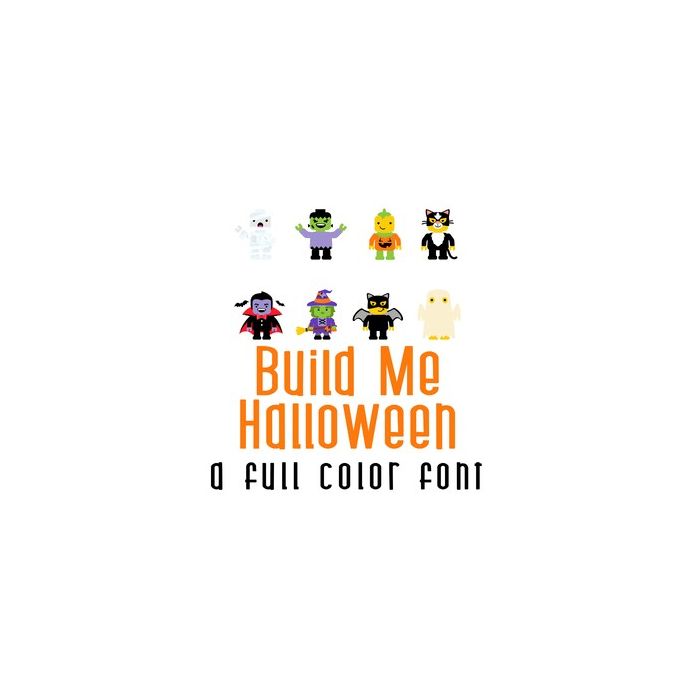
This adorable full-color doodlebat font features 26 minifigures dressed for Halloween. Perfect for cards, crafts, gifts, decor, scrapbook pages, planner stickers, and more!